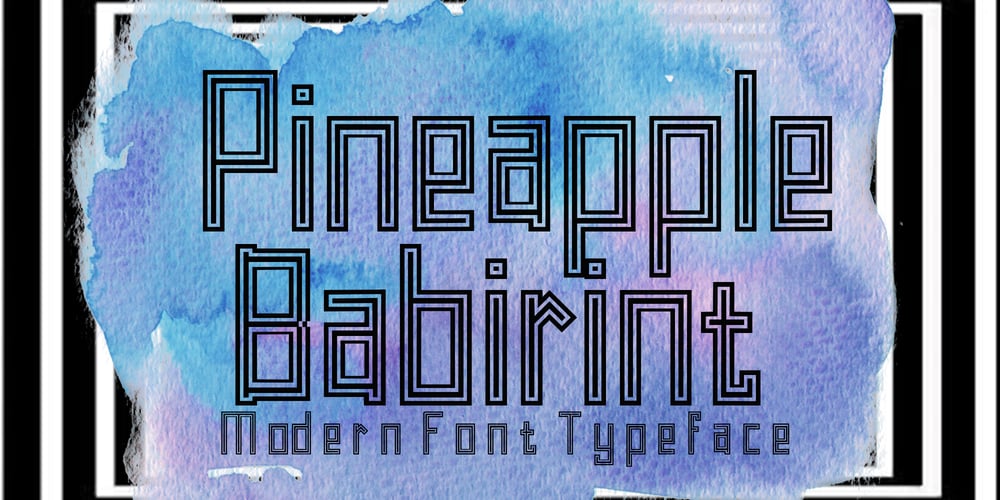
Pineapple Babirint Font Family was designed by Canden Meutuah and published by Canden Meutuah. Pineapple Babirint contains 1 styles and family package options. this is a stylish, bold and beautiful new Modern font that perfectly offers beautiful typographic harmony for a variety of design projects, including logos and branding, social media posts, advertisements, greeting cards, stationery designs, invitations, t-shirts, clothing , packaging, posters, and much more for other product designs.